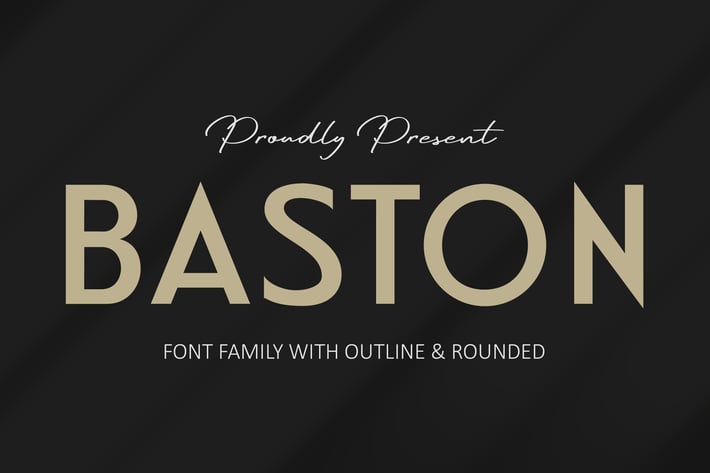
BASTON Business Sans Font
BASTON is made carefully, every curve in this font is elegantand so masculine. BASTON is is awesome font. Very perfect for many project: fashion, magazines, logo, branding, quotes, blog header, poster, advertisements, postcard, book, websites, etc.